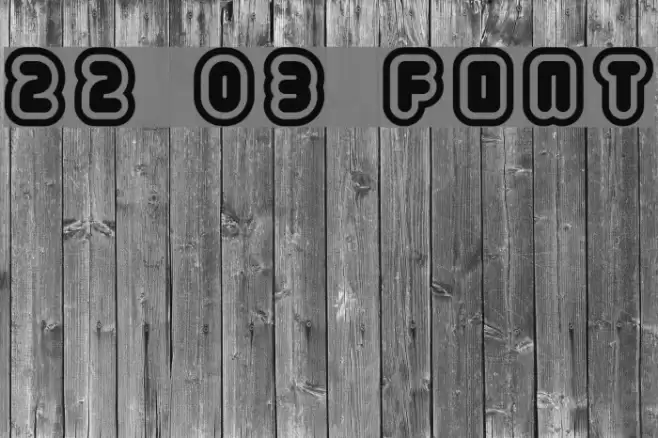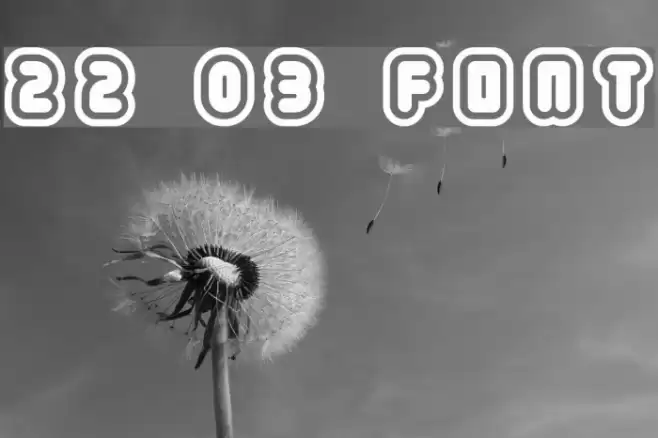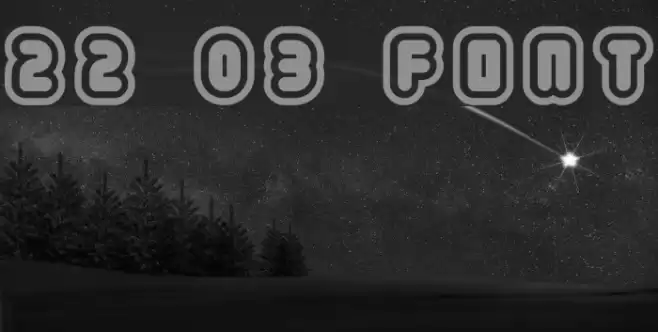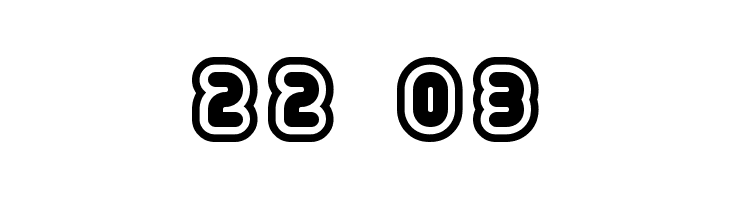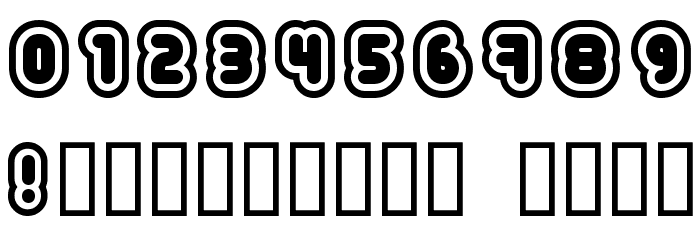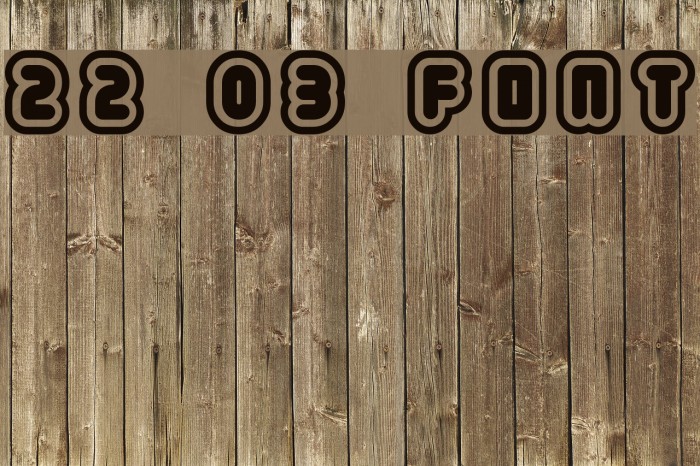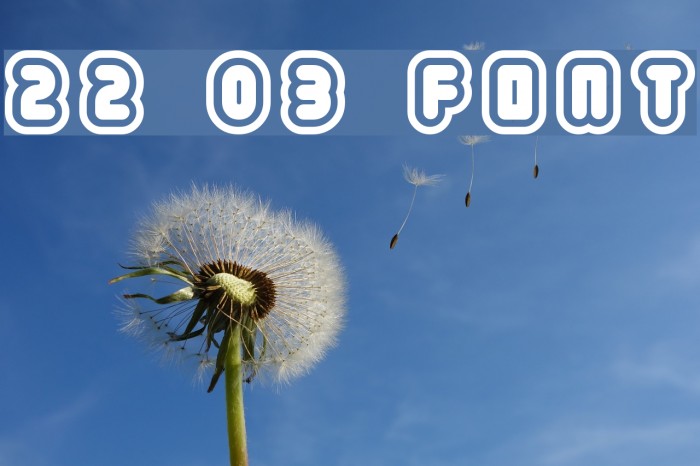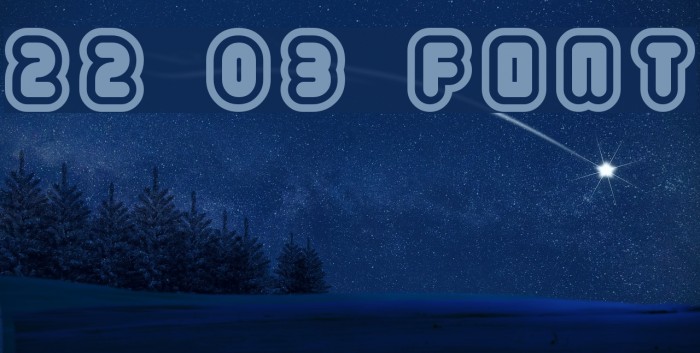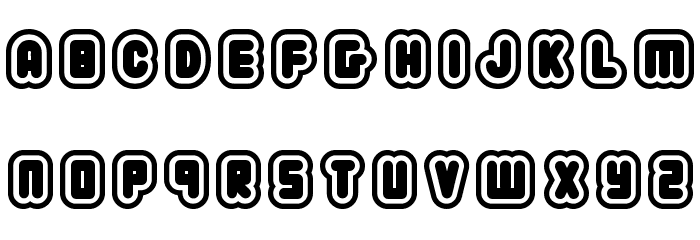
22 03 Font
22 03 Description
This font features a bold, playful design with a double outline that gives each character a three-dimensional effect. The letters are rounded and have a uniform thickness, creating a cohesive and modern look. The style is reminiscent of retro or vintage signage, yet it maintains a contemporary appeal. The characters are evenly spaced, ensuring readability while maintaining a unique aesthetic. The font includes both uppercase and lowercase letters, numbers, and a selection of special characters, making it versatile for various design needs.
A bold, playful font with a double outline and rounded characters from Uncategorized fonts.
- Proposed Projects: Ideal for use in posters, logos, children's books, and playful branding projects.